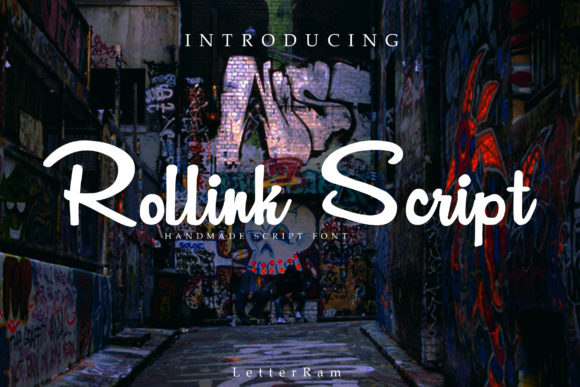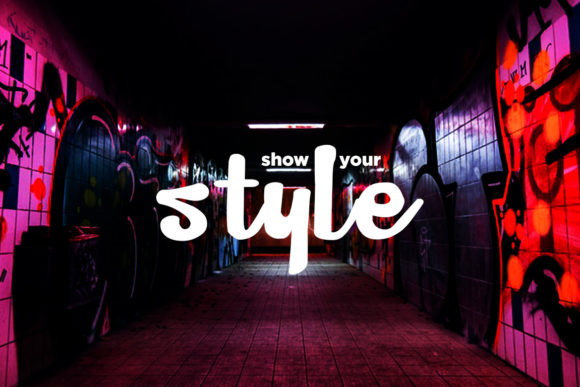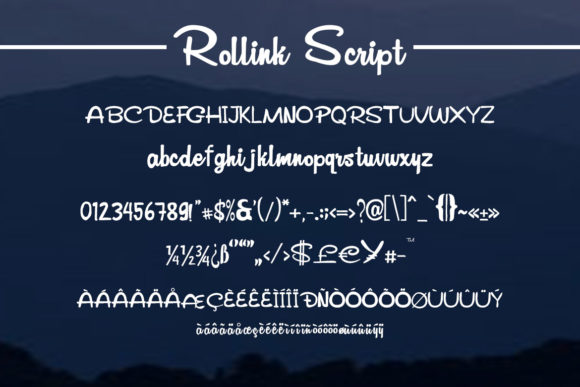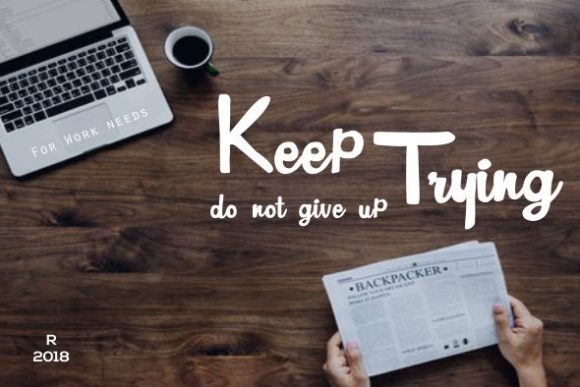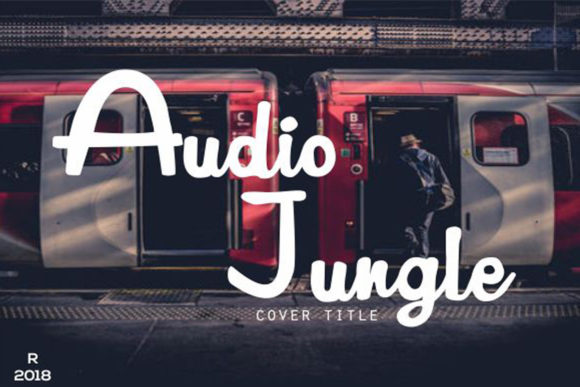
Rollink Script Font
About Rollink Script Font
The Rollink is a modern script font. It has a beautiful and distinctive writing style which will add an unique feel to your designs.
It’s perfect for logos, branding, motion graphics, visual designs, posters, invitations, typography, templates, product packaging, and advertisements.